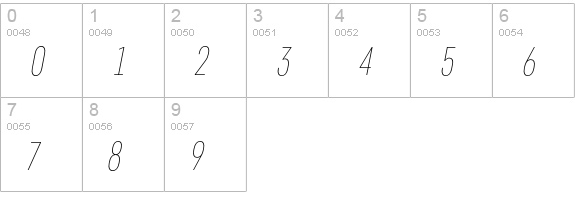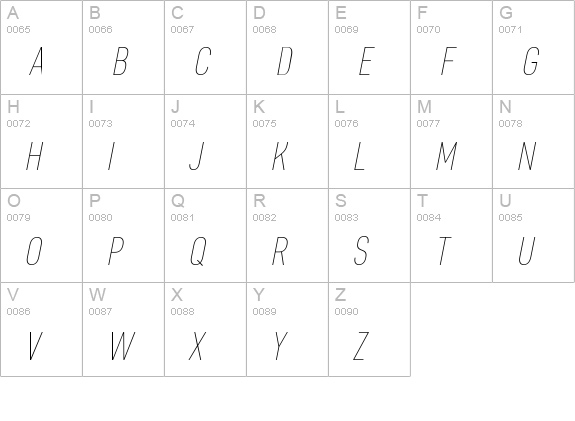
Core Sans D 17 Cn Thin Italic Font Details
Core Sans D 17 Cn Thin Italic is a delicate, low-contrast, italic variant in the Core typeface family \xE2\x80\x94 well suited to fashion editorial, minimal branding, and high-contrast display.
Core Sans D 17 Cn Thin Italic is a sleek and modern typeface that exudes sophistication and elegance. With its thin weight and italic style, this font is perfect for adding a touch of refinement to any design project. The subtle curves and clean lines of Core Sans D 17 Cn Thin Italic create a sense of grace and fluidity, making it an ideal choice for conveying a sense of style and professionalism. Best of all, Core Sans D 17 Cn Thin Italic is available for free download at FontsMarket.com. This means that you can easily access this beautiful font and use it in your projects without any cost. Whether you're working on a website, a poster, a logo, or any other design, Core Sans D 17 Cn Thin Italic will help you achieve a polished and sophisticated look. Don't miss out on this opportunity to enhance your designs with this stunning typeface - download Core Sans D 17 Cn Thin Italic today!